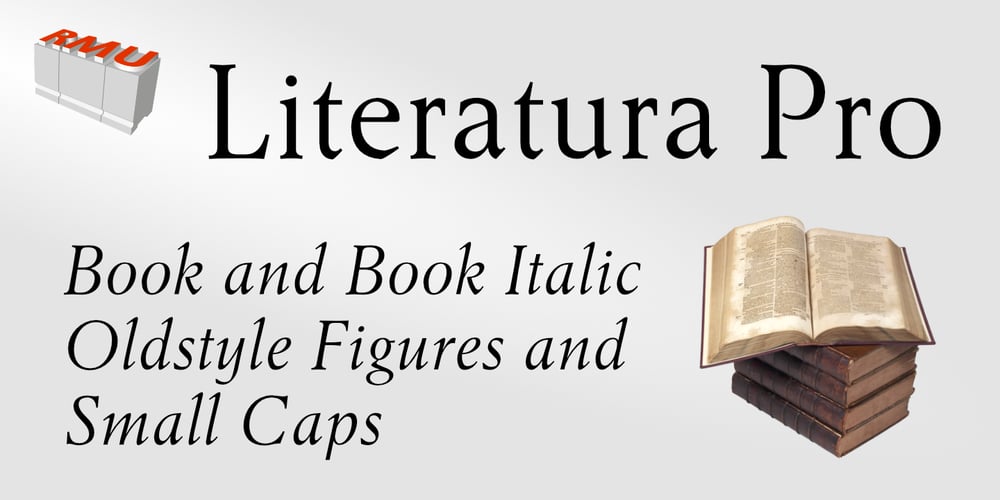
Literatura Pro
Literatura Pro font
Literatura Pro Font Family was designed by Ralph M. Unger, Hellmuth Tschörtner and published by RMU. Literatura Pro contains 2 styles and family package options. An elegant, well proportioned serif font family, especially intended for book production.